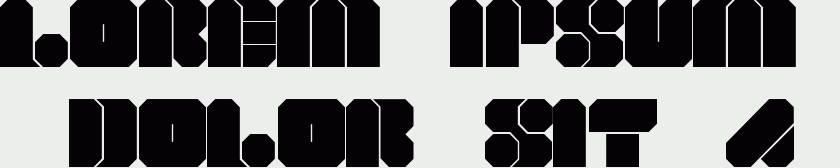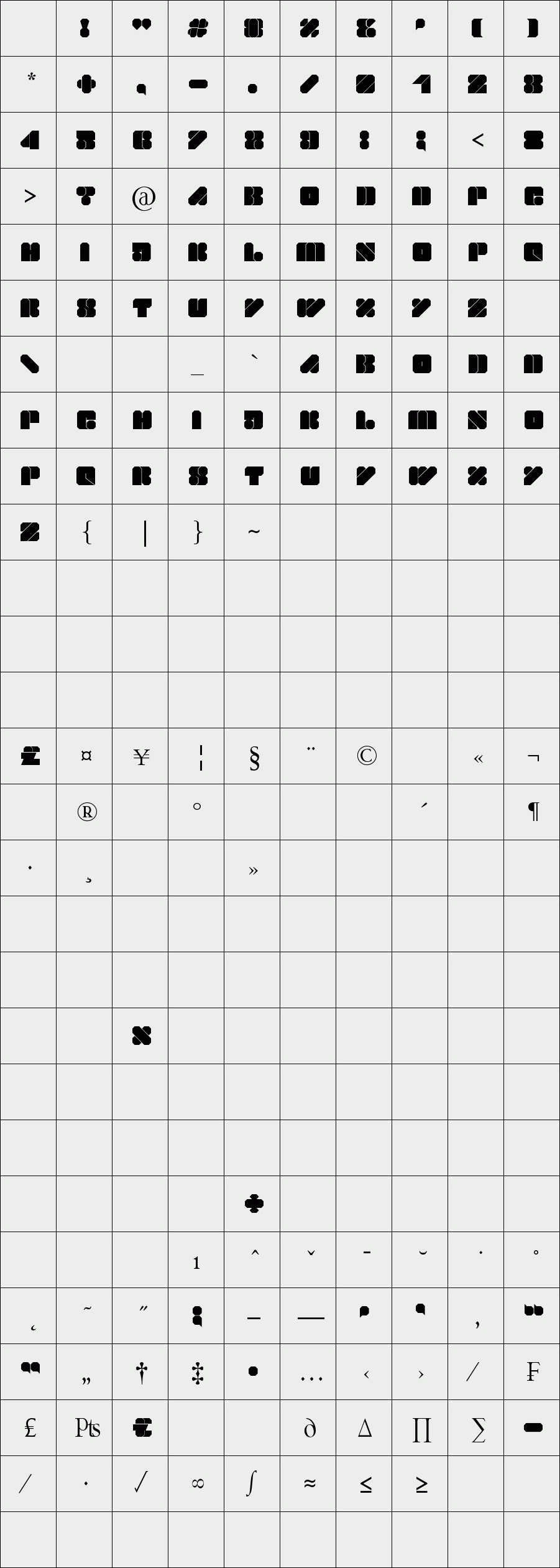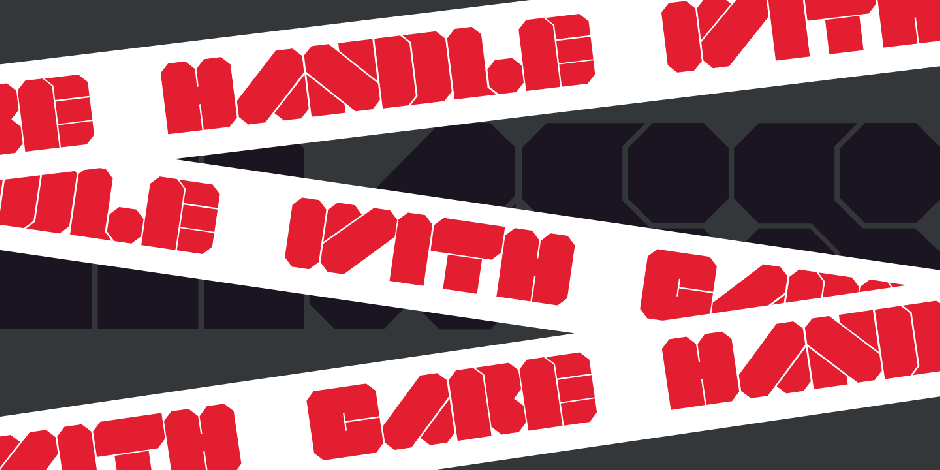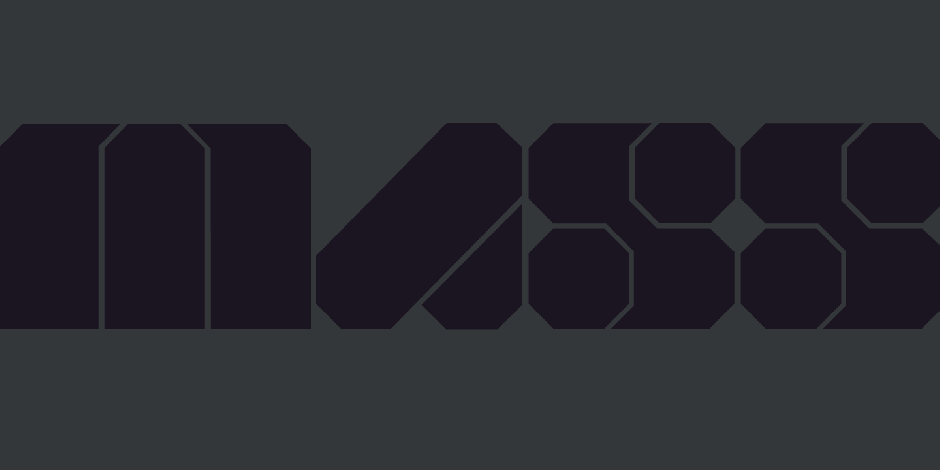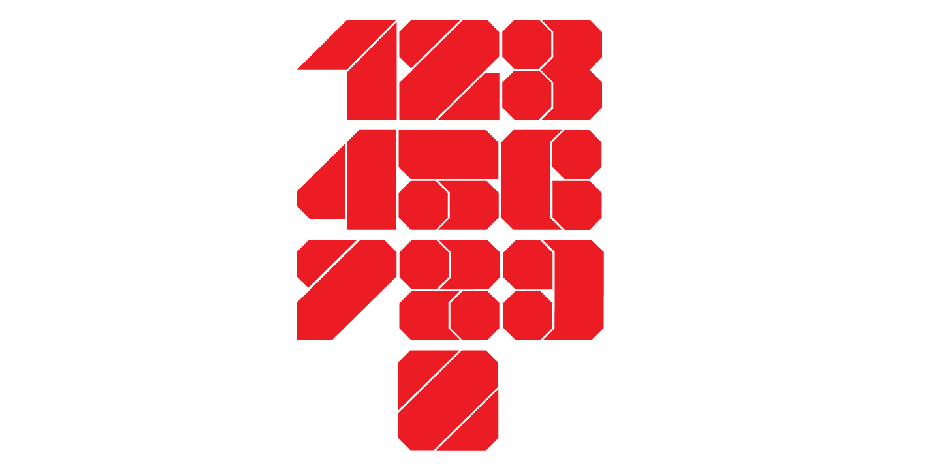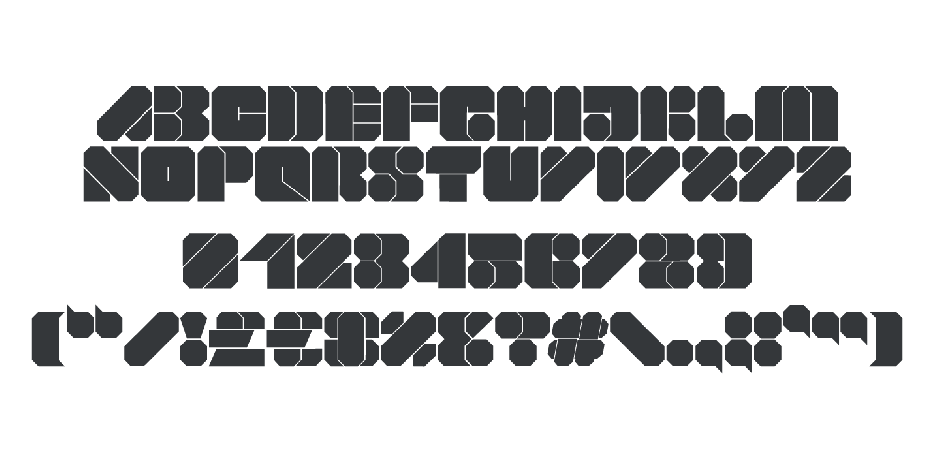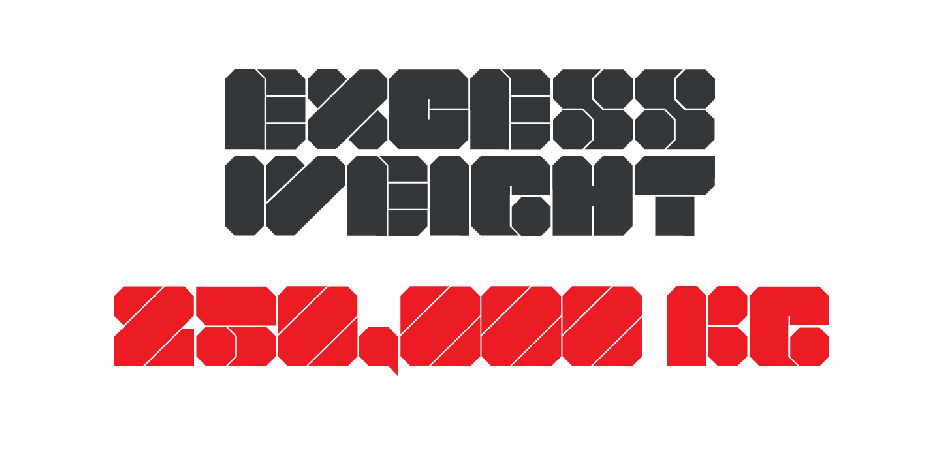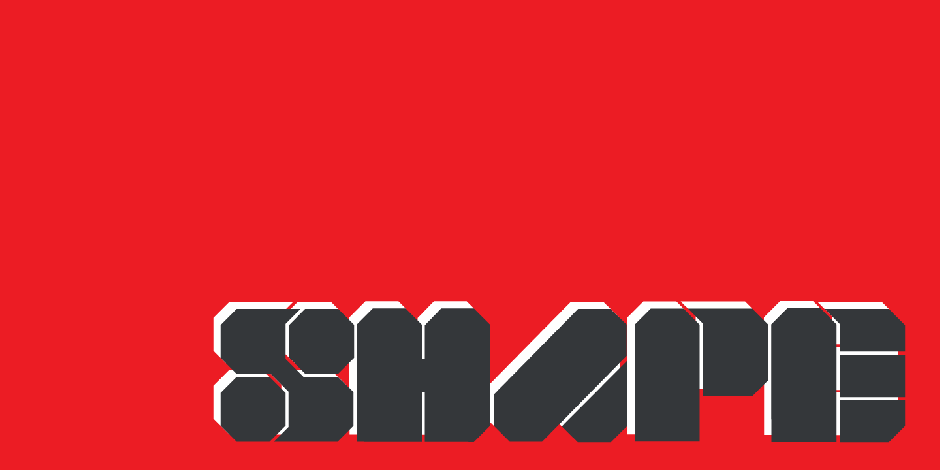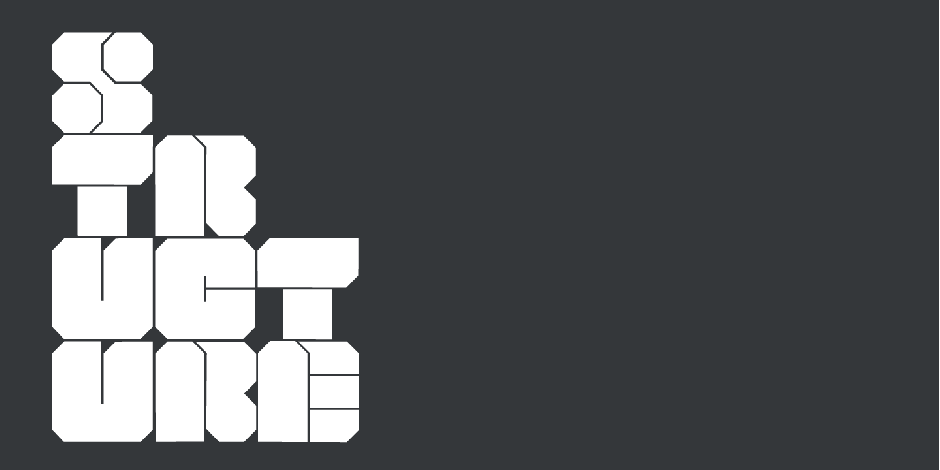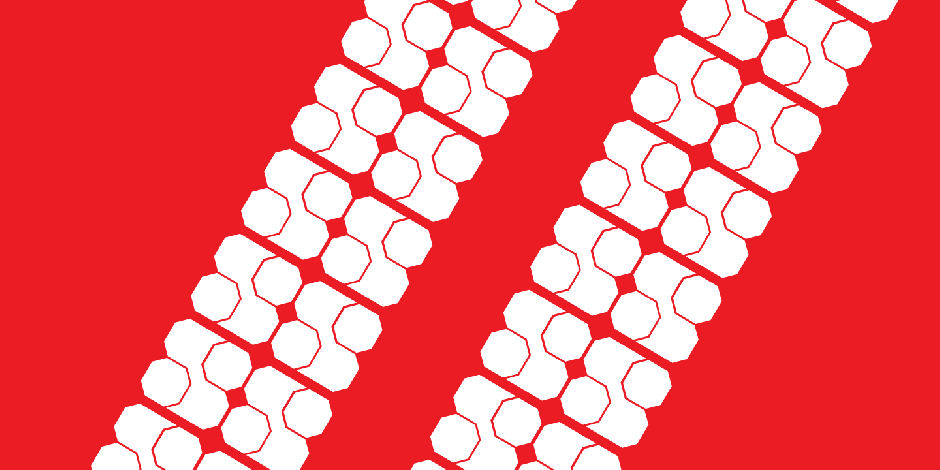
MASS
MASS is a super heavy stencil font. Designed to be used at large sizes for maximum impact. A perfect headline or poster font, or even better as a huge font for supergraphics, the modular construction of the characters creates letterforms that are energetic and dynamic.